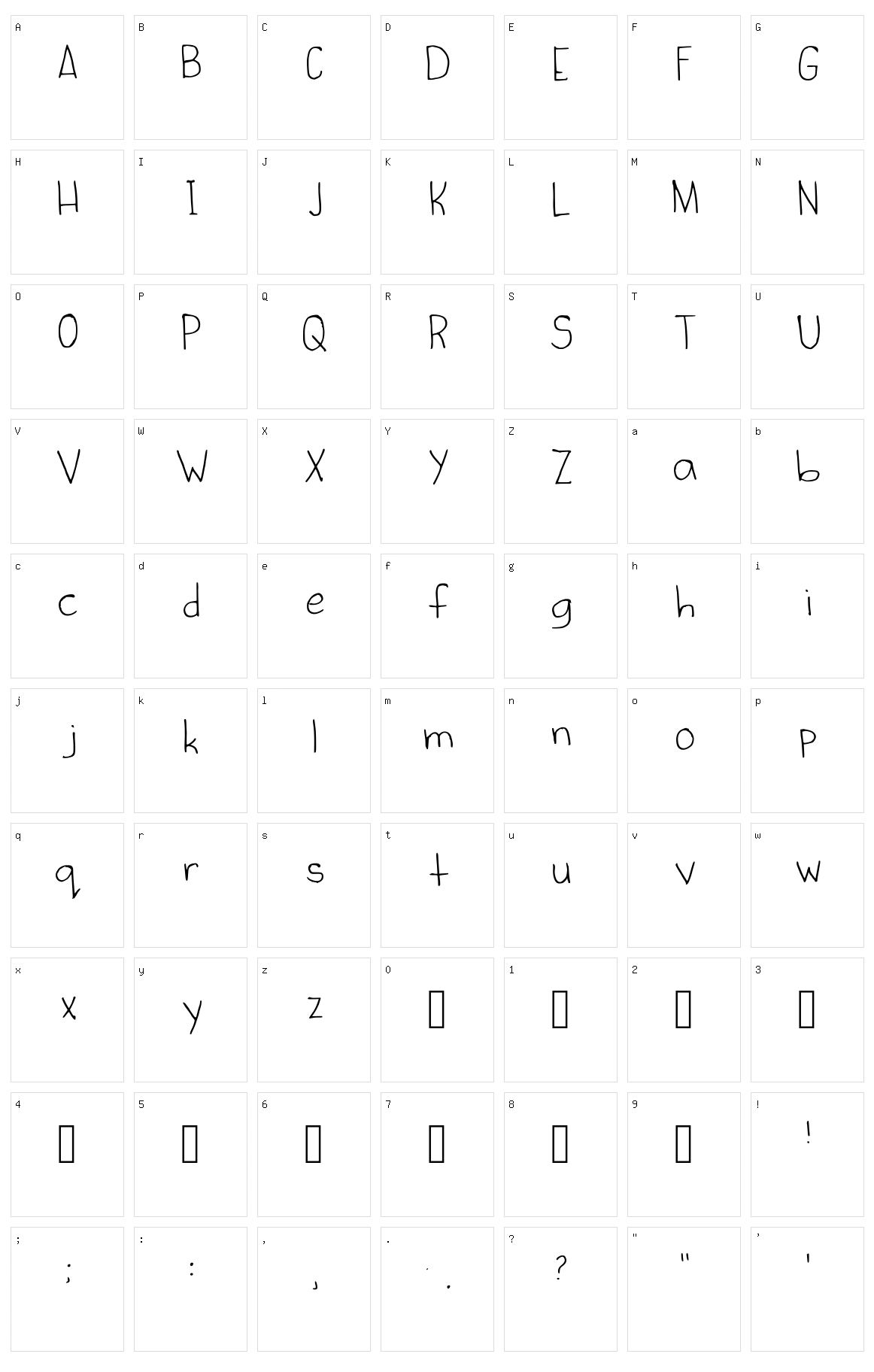
The free font It's My Pal is carefully designed by andylaxy, showcasing a thoughtful balance of creativity and usability and falls under the Script font style. When you download the ZIP file, it contains only 9.35 KB of font files, making it lightweight and quick to download. Please review the license details below to understand permitted usage and distribution rights. If license information is not available, we recommend using this font for personal projects only or contacting the author directly for commercial usage permissions.